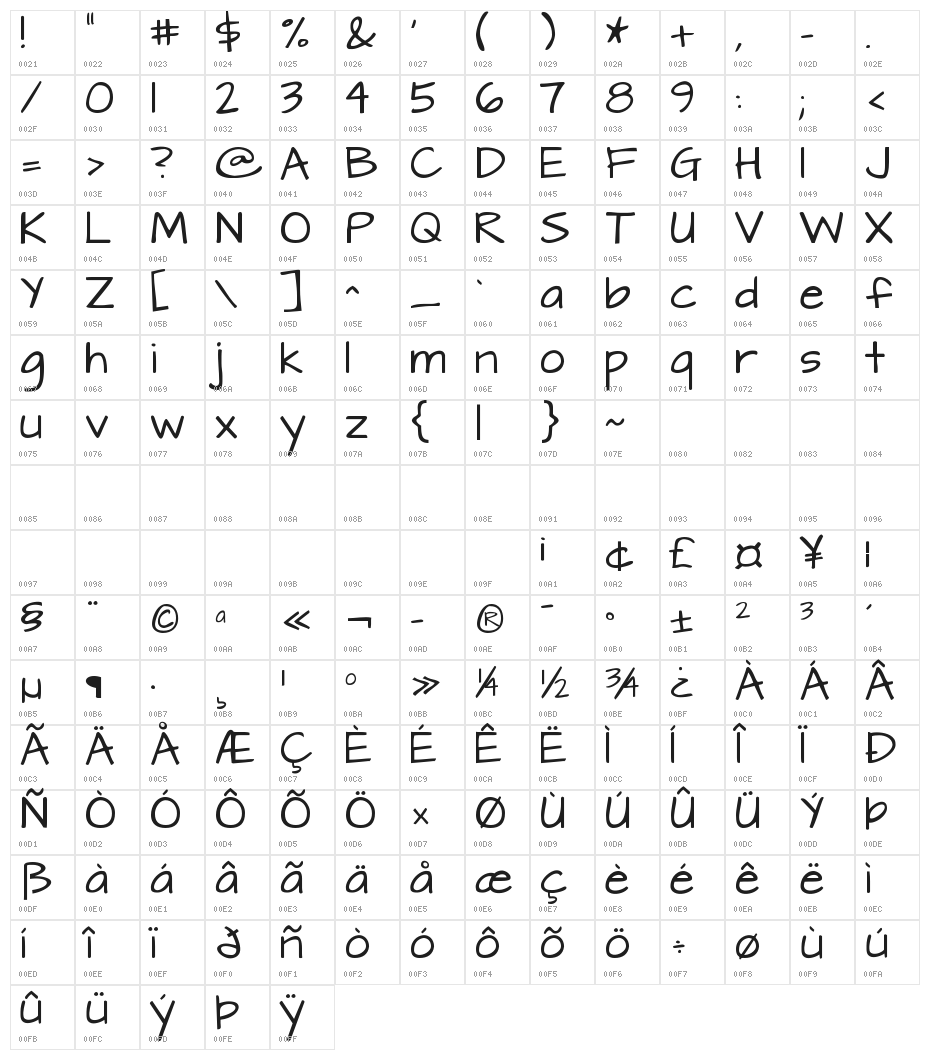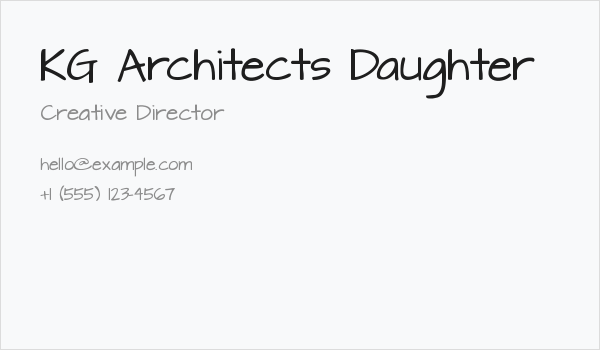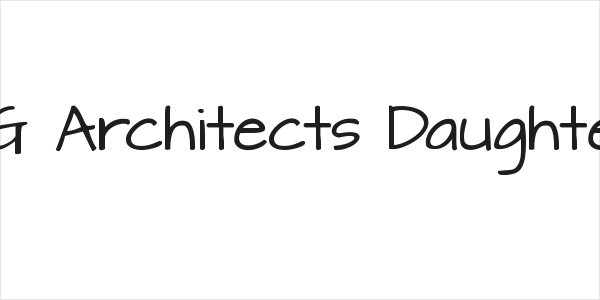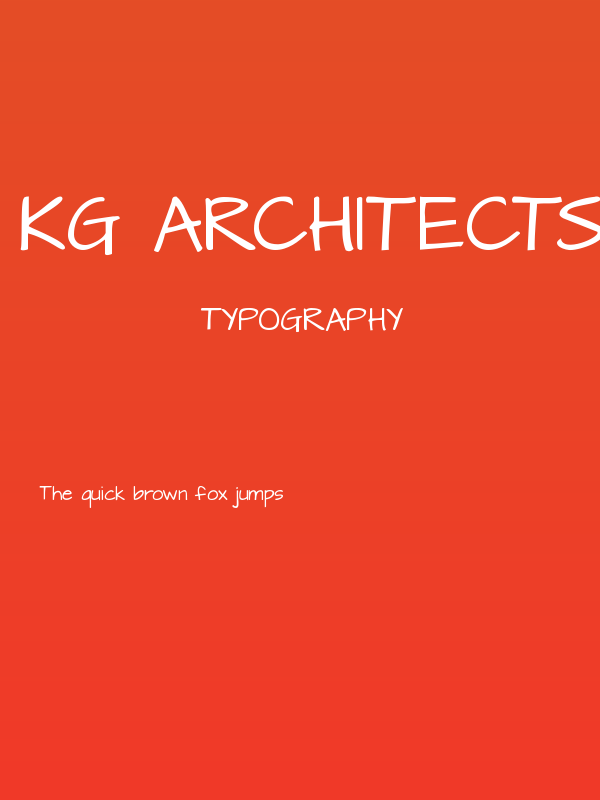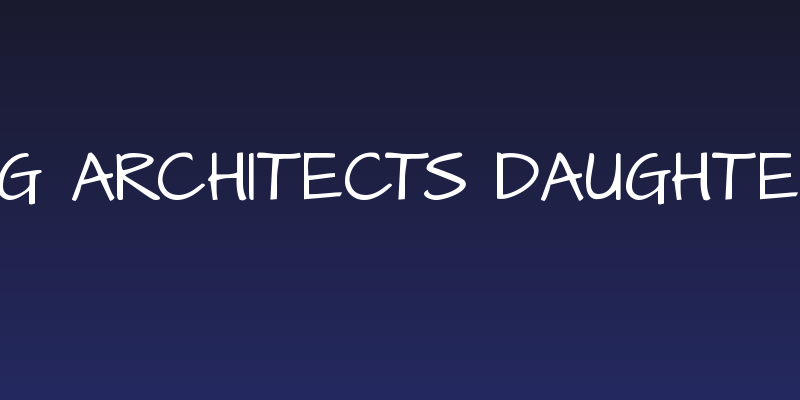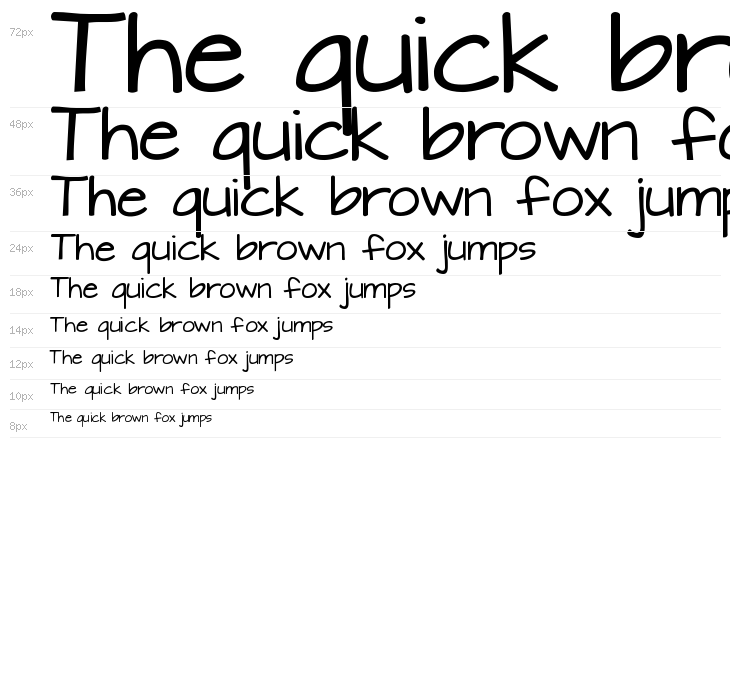
KG Architects Daughter Font
KG Architects Daughter Description
This font features a playful and informal handwritten style, characterized by its smooth, rounded edges and slightly irregular letterforms. The uppercase and lowercase letters maintain a consistent flow, giving it a casual and approachable appearance. The numbers and special characters are designed with the same playful aesthetic, making them easily readable while retaining the font's unique charm. This font is perfect for projects that require a personal touch, such as greeting cards, children's books, or casual branding materials. Its friendly and inviting style makes it suitable for a wide range of creative applications.
| Use Case | Greeting cards, Children's books, Casual branding |
| Proposed Projects | Ideal for greeting cards, children's books, casual branding, and creative projects. |